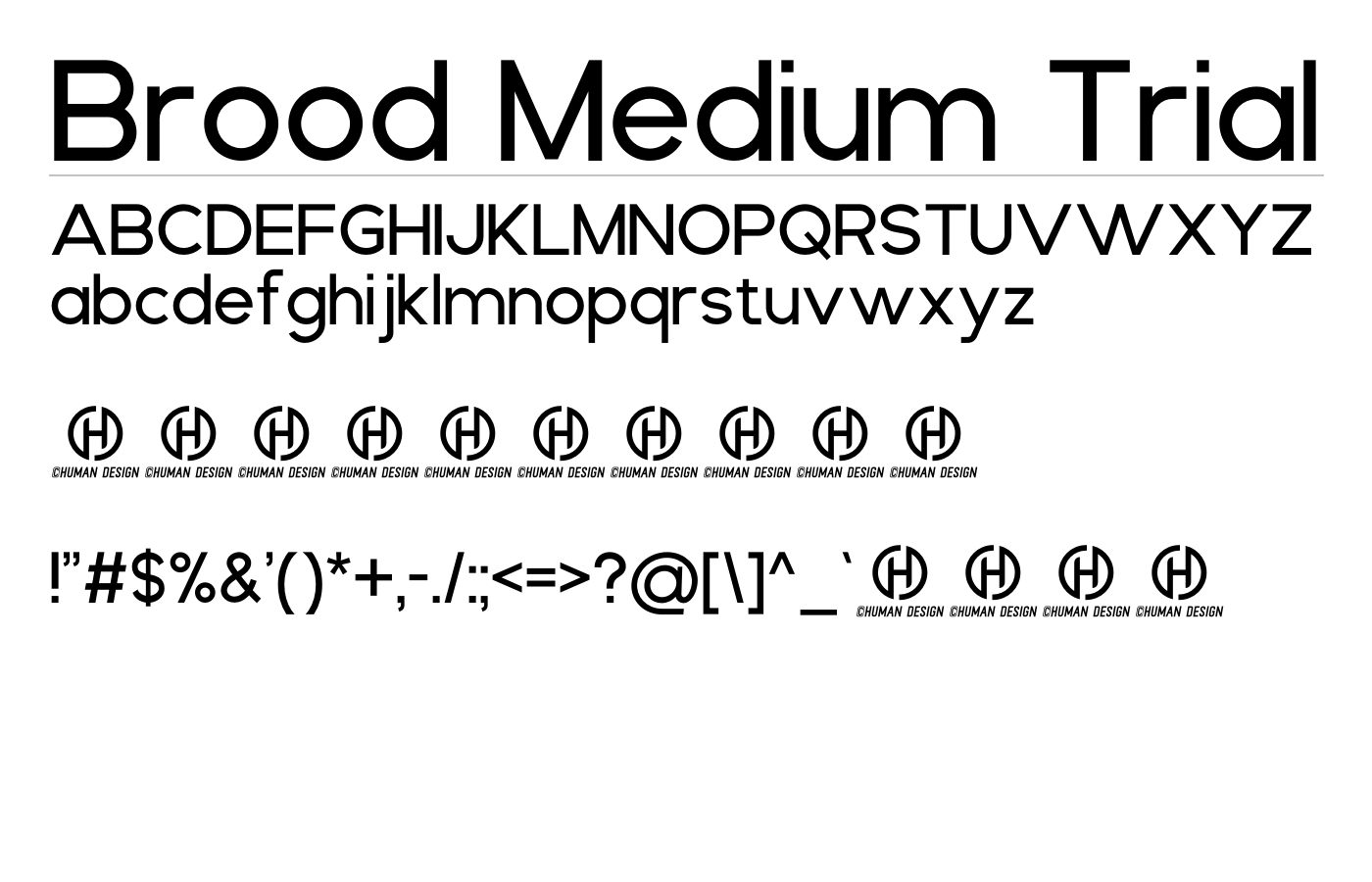
Brood Medium is a clean, modern sans serif font distinguished by its geometric shapes and balanced proportions, featuring a medium weight and moderate x-height that ensure excellent readability. Its simple, elegant letterforms with consistent stroke widths make it ideal for contemporary branding, editorial headlines, and digital interfaces where clarity and a polished, professional look are essential. This versatile typeface works well in both display and body text settings, conveying a fresh, approachable yet sophisticated personality.
Brood Font
About Brood Font
| Designer | Human Design |